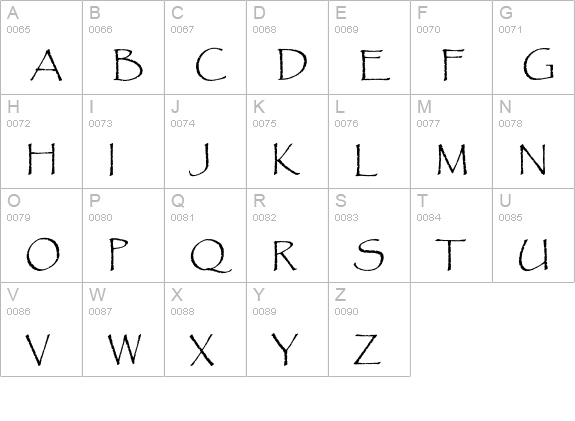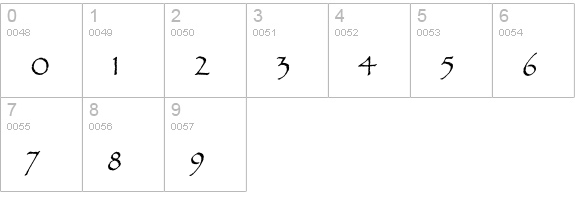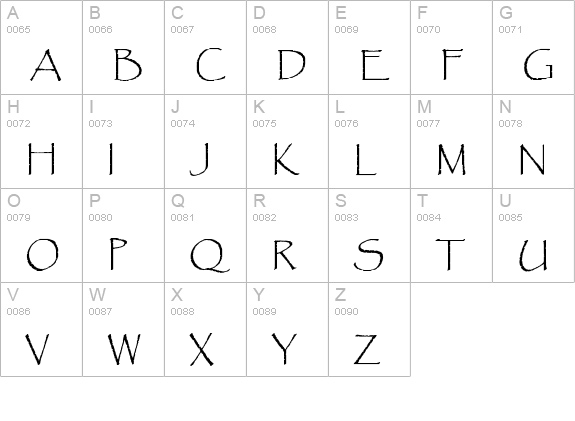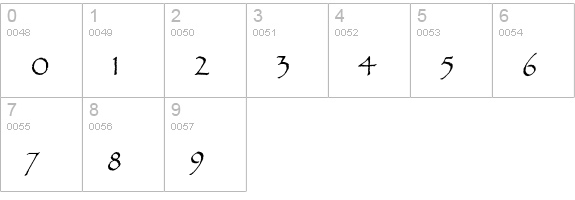
PapyrusEF-Regular Font Details
PapyrusEF-Regular is the standard, neutral variant in the PapyrusEF typeface family \xE2\x80\x94 well suited to general body text, paragraphs, and standard typographic work.
PapyrusEF-Regular is a versatile and elegant font that exudes a sense of timeless beauty. With its balanced proportions and delicate curves, this font is perfect for adding a touch of sophistication to any design project. Featuring a unique blend of classic and modern elements, PapyrusEF-Regular captures attention with its graceful letterforms and fluid strokes. Whether used for headings, body text, or even logos, this font effortlessly conveys a sense of style and refinement. One of the greatest advantages of PapyrusEF-Regular is that it is available for free. Thanks to FontsMarket.com, this exceptional font can be downloaded and enjoyed by designers, creatives, and enthusiasts alike. It offers an opportunity to elevate any project without breaking the bank. With its extensive character set and variety of weights, PapyrusEF-Regular provides endless possibilities for design exploration. From invitations and packaging to branding and advertising, this font seamlessly adapts to any context, delivering an air of sophistication and elegance. PapyrusEF-Regular is more than just a font; it is a statement of refined taste and attention to detail. Its versatility and timeless appeal make it a valuable addition to any designer's toolkit. So why wait? Discover the beauty and versatility of PapyrusEF-Regular today, and let your creativity soar. Download it freely at FontsMarket.com and unlock a world of endless design possibilities.